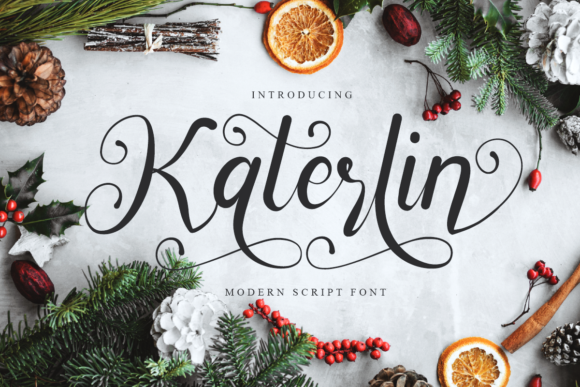
Get ready to fall head over heels for Katerlin, the enchanting script font that will ignite your creativity and leave a lasting impression on your designs. Crafted with meticulous precision by Muksal Creative, Katerlin embodies elegance and fluidity, making it the perfect choice for adding a touch of sophistication and charm to your projects.
Picture this: your wedding invitations adorned with Katerlin's graceful curves, exuding an air of timeless romance. Thank you cards become heartfelt expressions of gratitude, each letter flowing effortlessly to convey your sincere appreciation. Quotes take on a new life, their messages amplified by Katerlin's enchanting presence.
But Katerlin's versatility doesn't end there. Greeting cards become works of art, their sentiments imbued with a touch of whimsy and wonder. Logos and business cards gain an instant touch of professionalism and memorability, setting your brand apart from the crowd.
The possibilities are endless with Katerlin, a font that seamlessly blends beauty and functionality. Its PUA encoding grants you effortless access to a world of glyphs and swashes, empowering you to unleash your creativity and bring your designs to life.